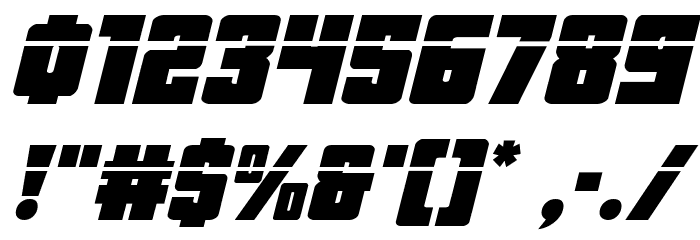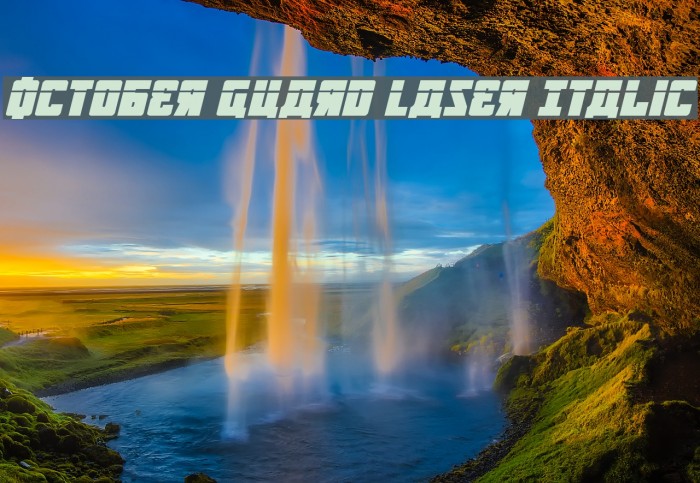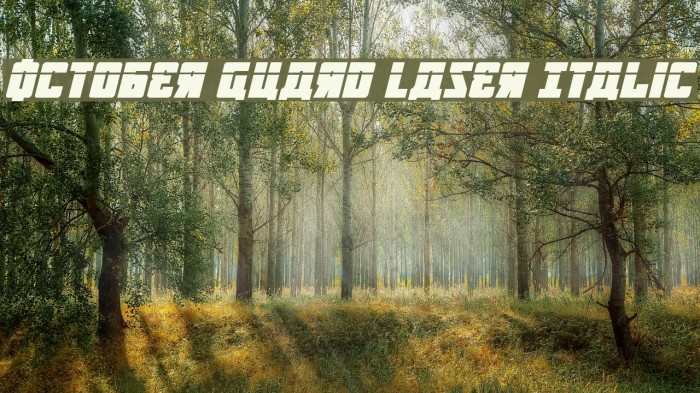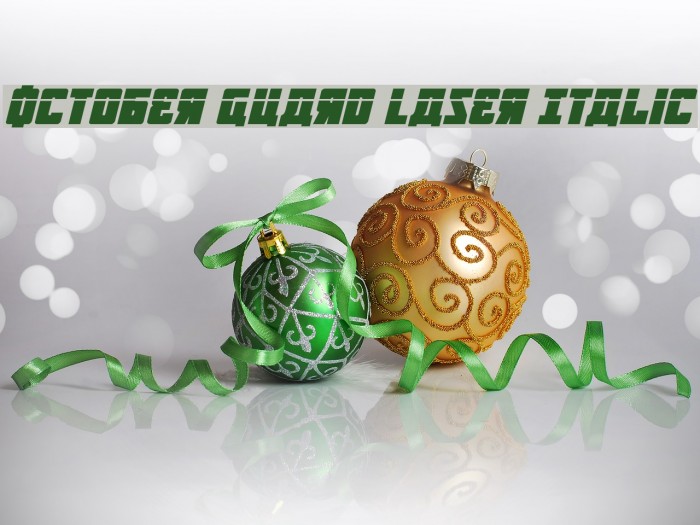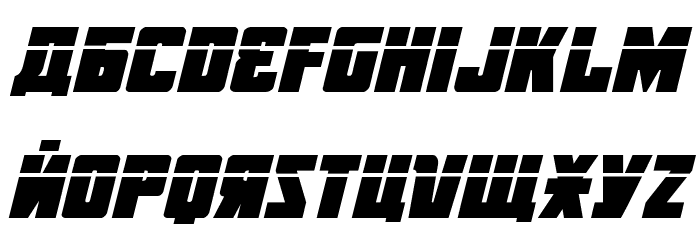
October Guard Laser Italic Font
October Guard Laser Italic Description
This font features a bold, angular design with a futuristic and dynamic appearance. The characters are sharply cut with a distinct slant, giving it an italicized look. The uppercase letters are particularly striking, with a blocky, geometric style that conveys strength and modernity. The numbers and special characters maintain this bold aesthetic, ensuring consistency across all glyphs. The font's design is reminiscent of sci-fi themes, making it suitable for projects that require a strong, impactful visual presence.
| Proposed Projects | Ideal for sci-fi movie posters, video game titles, tech branding, and futuristic-themed designs. |